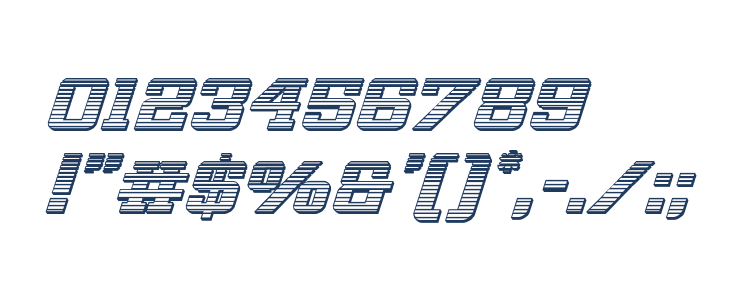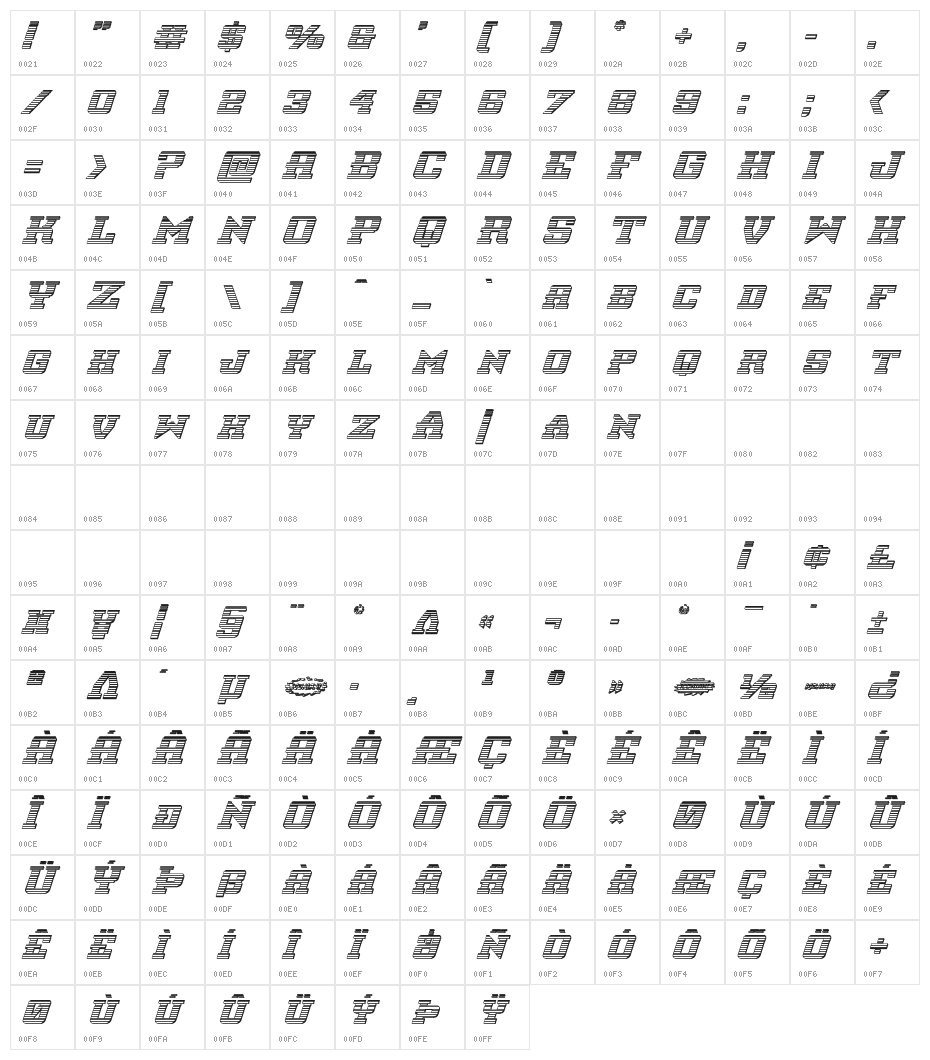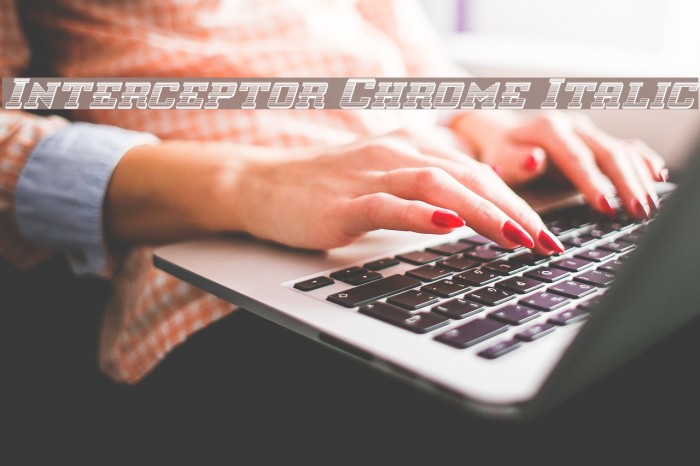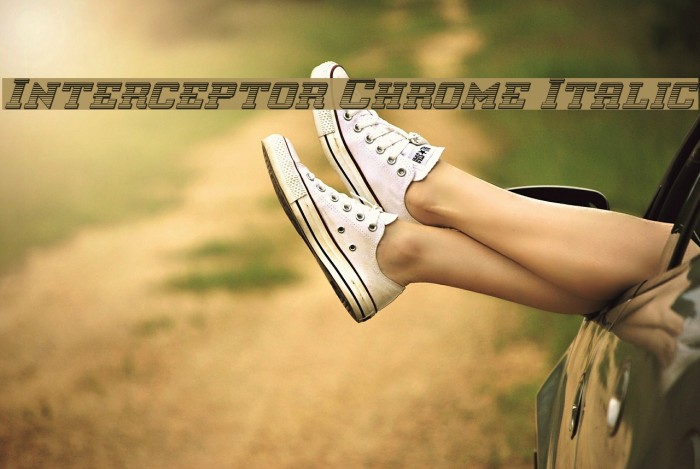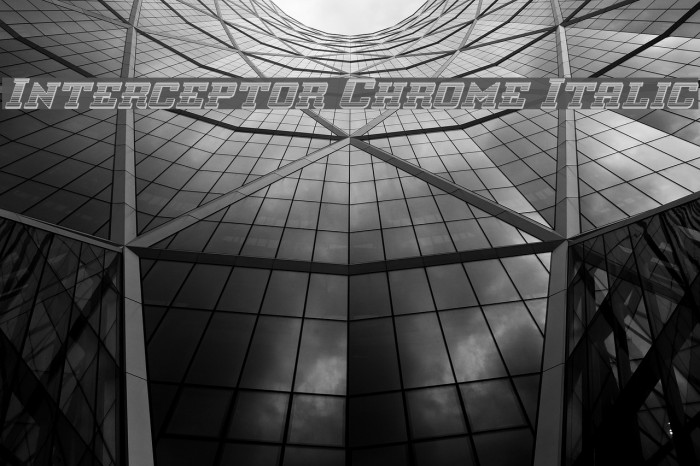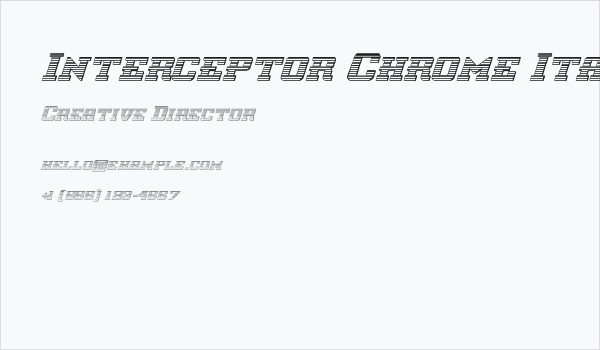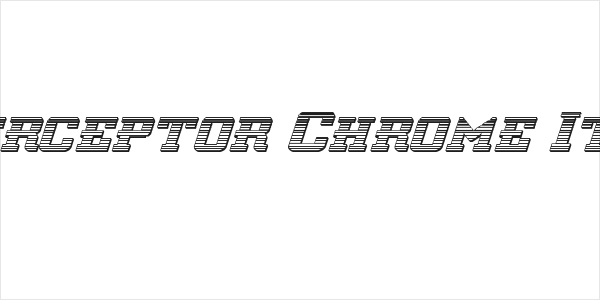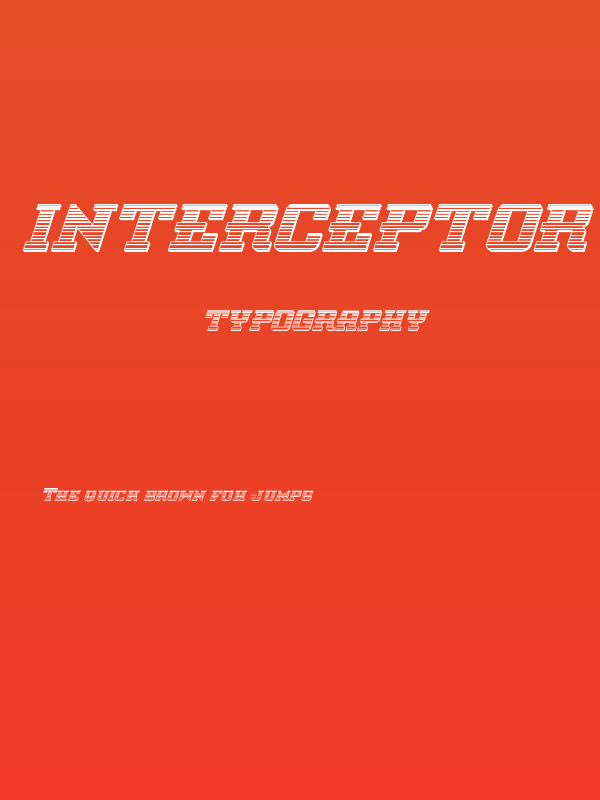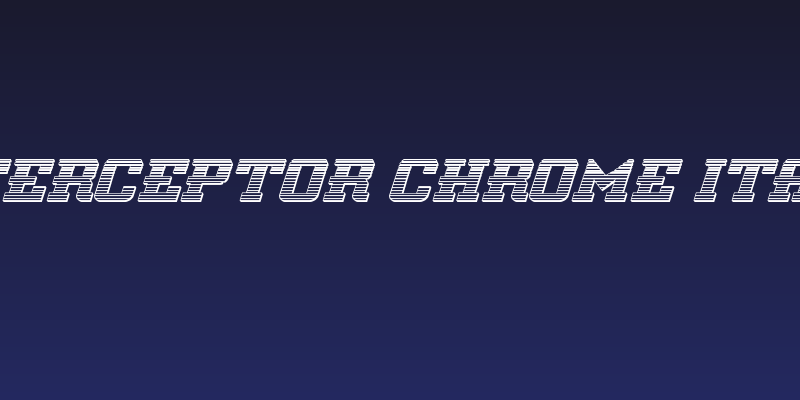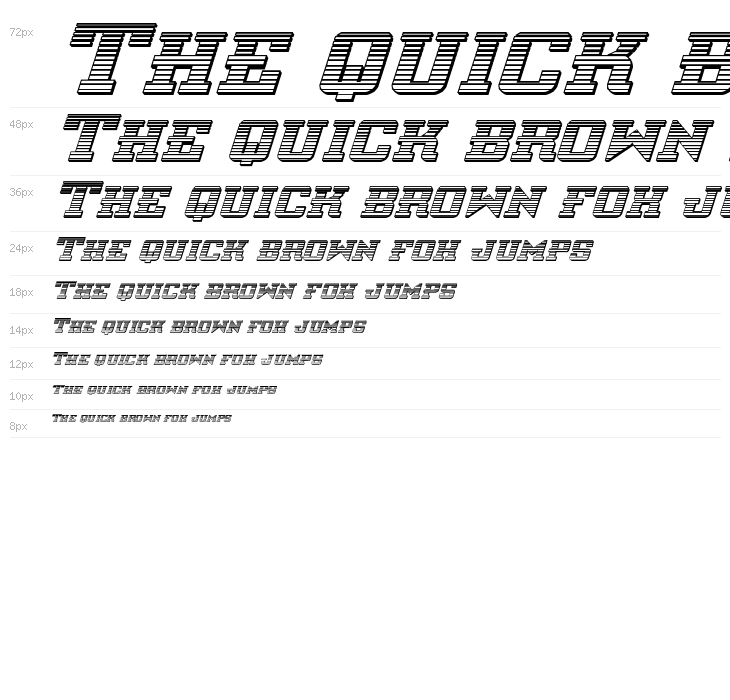
Interceptor Chrome Italic Font
Interceptor Chrome Italic Description
This font features a bold, italicized style with a distinct chrome-like appearance. The characters are designed with horizontal lines that create a layered effect, giving them a three-dimensional look. The uppercase letters are strong and impactful, while the numbers and special characters maintain the same bold and dynamic style. The font's unique design makes it stand out, suitable for attention-grabbing headlines or logos. The italic slant adds a sense of motion and speed, enhancing its modern and futuristic appeal.
| Overall Style | Modern, Futuristic |